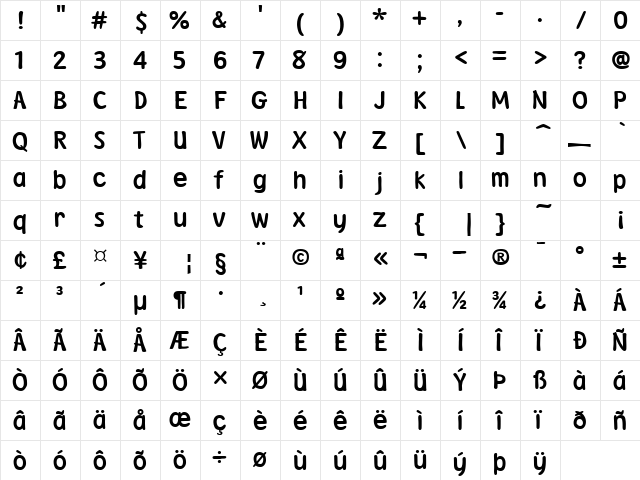
Fontoon ITC TT Regular
Design Context for Fontoon ITC TT Typeface
Fontoon ITC TT is a composed and adaptable typeface that performs quietly and consistently across a wide range of design contexts.